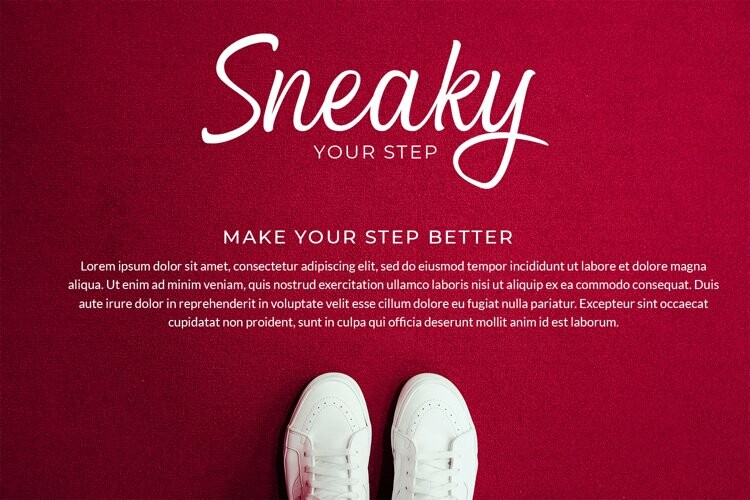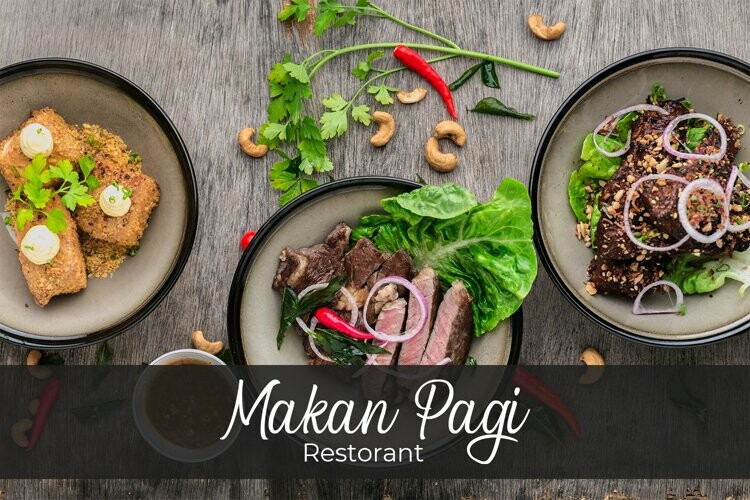
Blcak Matland Font
Black Matland is a stylish handwring font. with natural movement make looks elegant, classy and beauty for your project.
Black Matland is perfect for branding projects, logo, wedding designs, social media posts, advertisements, product packaging, product designs, label, photography, watermark, invitation, stationery and any projects that need handwriting taste.
This gorgeous font includes all lowercase and uppercase characters, numbers, punctuation, an array of standard ligatures and a selection of international characters as well